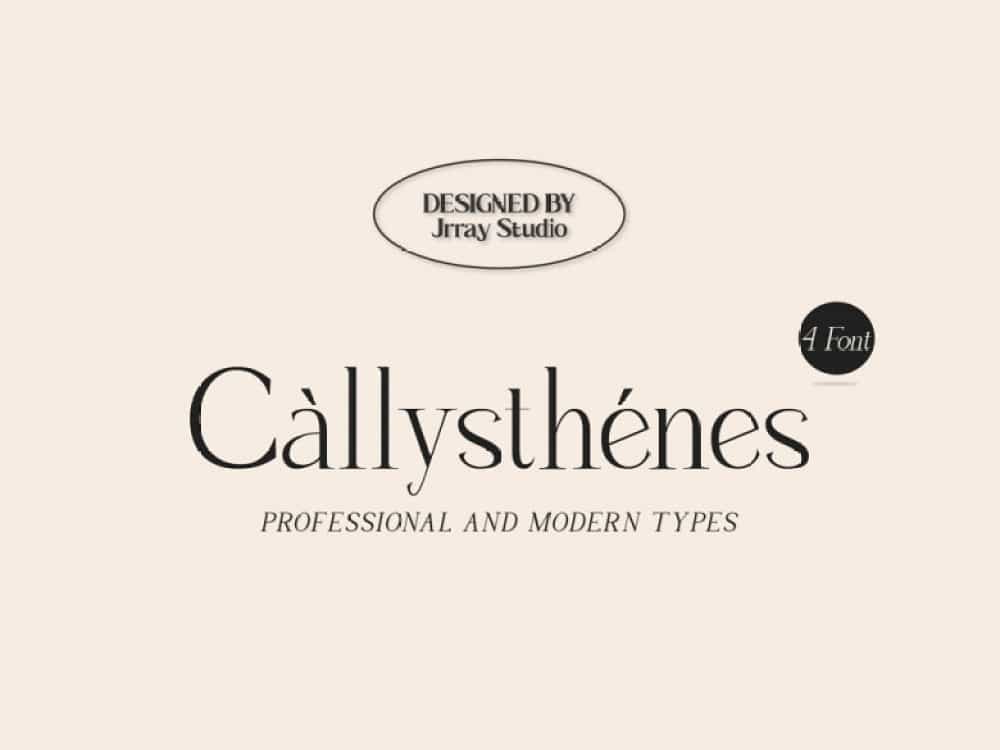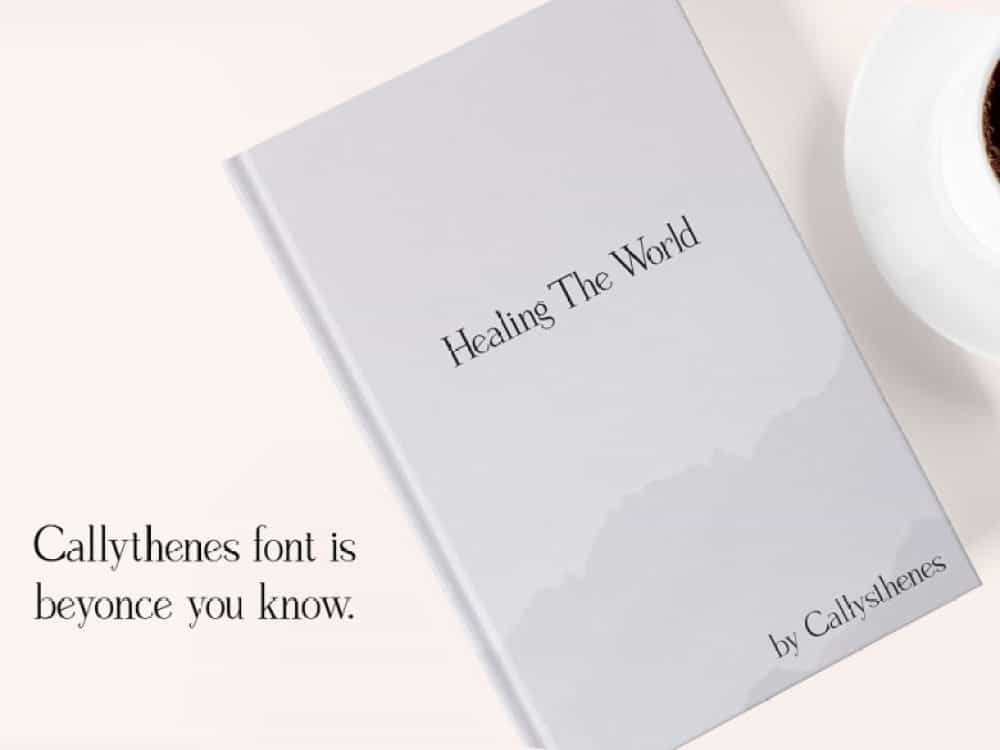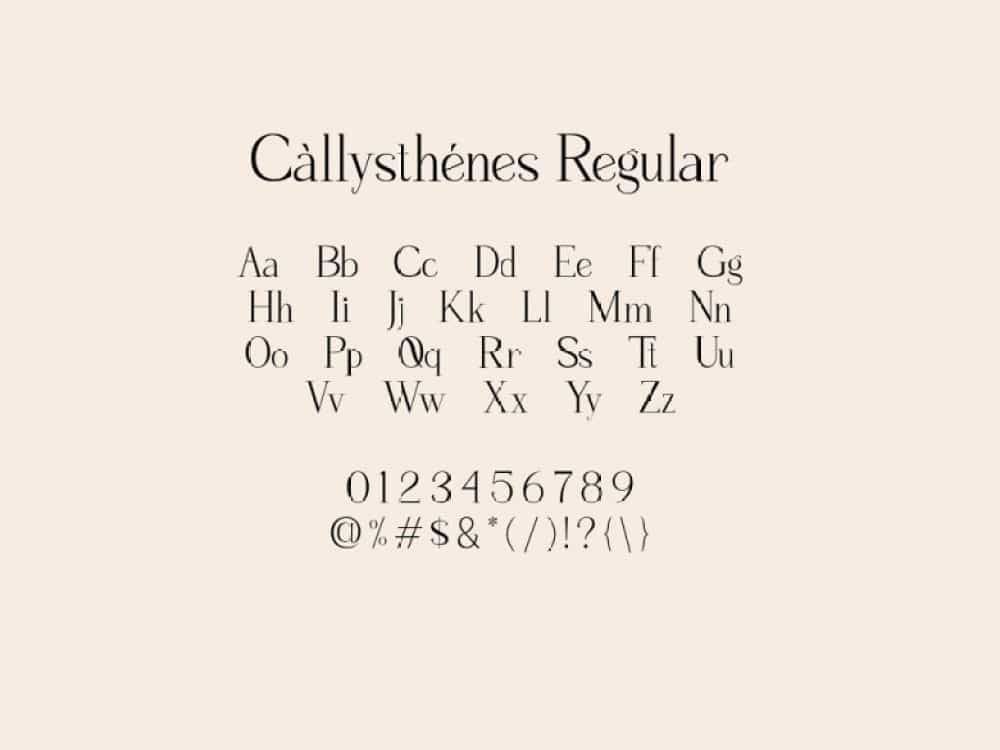
Callysthenes is a modern serif font family to give your appearance a new look, chic and classy. There are four versions of this font: regular, italic, bold, and bold italic in the package. This font is ideal for use for logos, cards, apparels, printed products, invitations, product packaging, letterheads, magazines, books and many more.